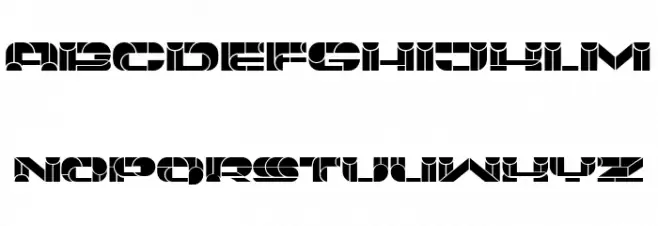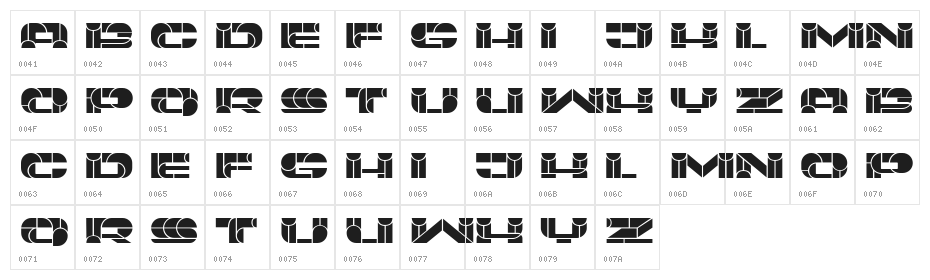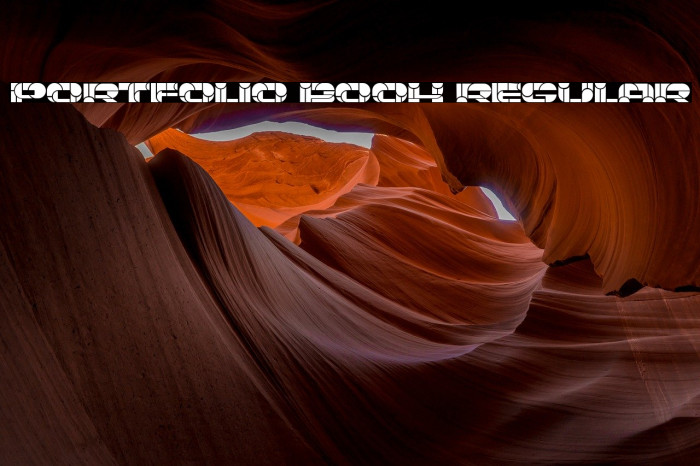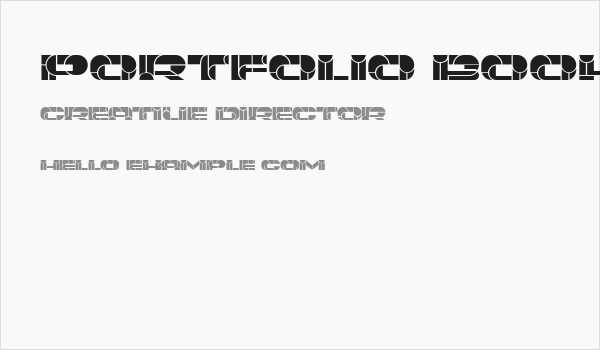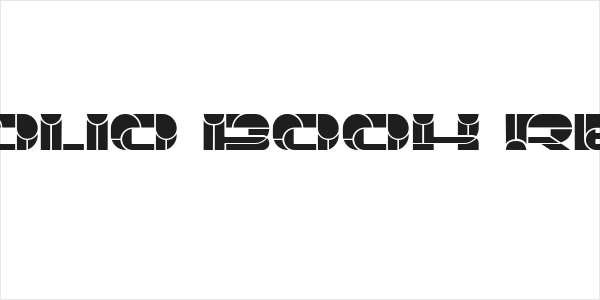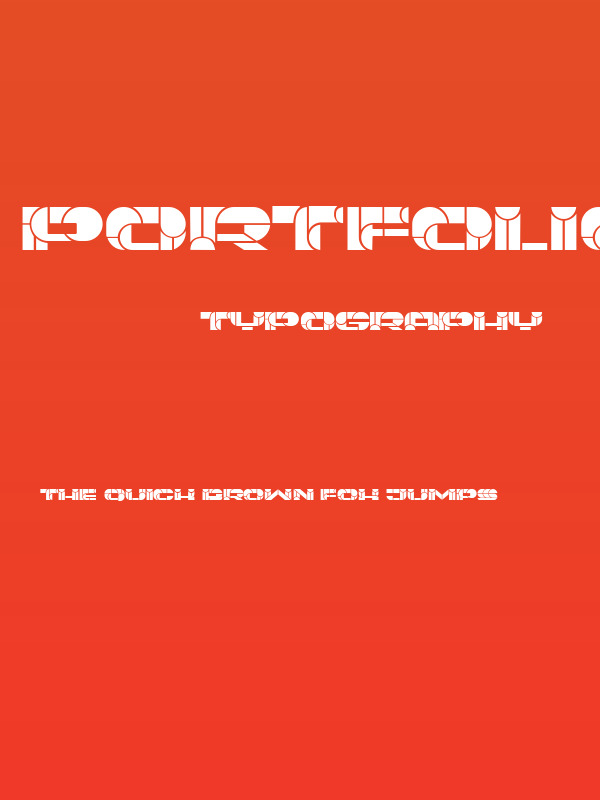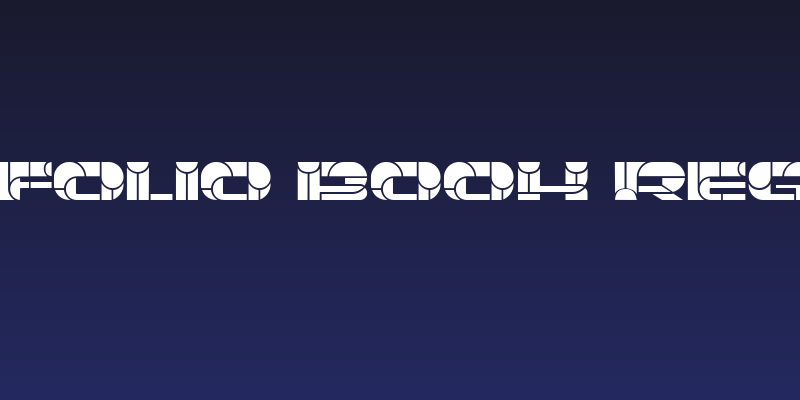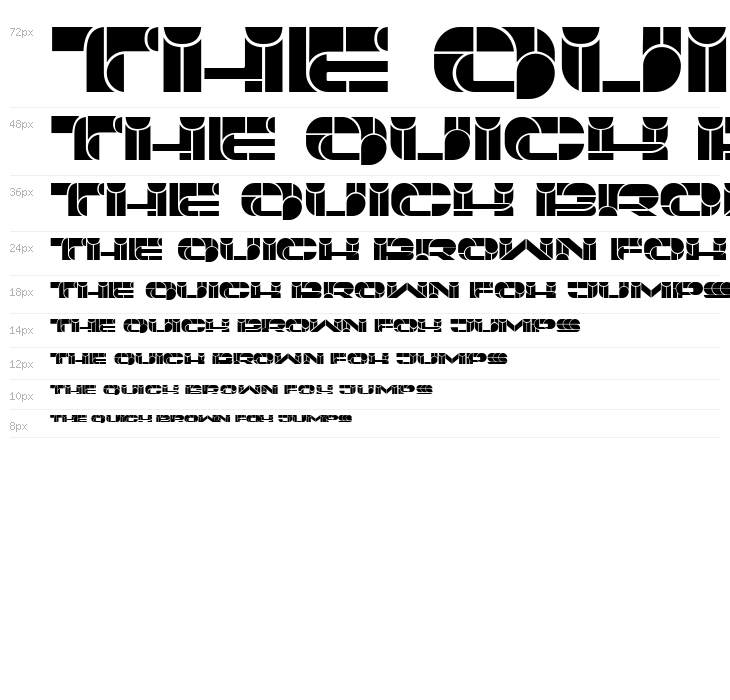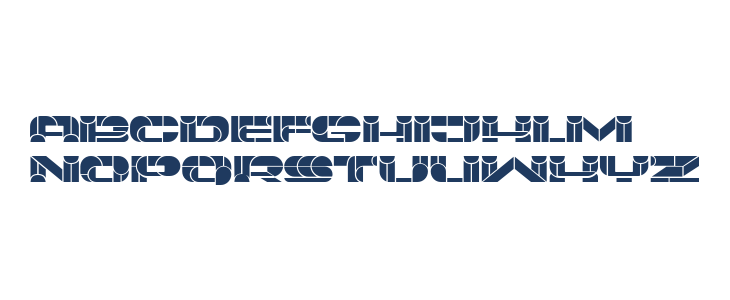
Portfolio Book Regular Font
Portfolio Book Regular Description
This font features a bold, geometric design with a futuristic and modern aesthetic. The characters are constructed with a series of straight lines and sharp angles, creating a highly stylized appearance. The use of negative space is prominent, giving the font a unique and eye-catching look. The uppercase letters are particularly striking, with each character maintaining a consistent height and width, contributing to a uniform and cohesive appearance. The font's design is reminiscent of digital or technological themes, making it suitable for projects that require a contemporary and innovative feel. The overall style is decorative, with a strong emphasis on visual impact.
A bold, geometric font with a futuristic and modern design from Decorative fonts.
- Proposed Projects: Ideal for technology branding, sci-fi themed posters, video game titles, and modern digital interfaces.